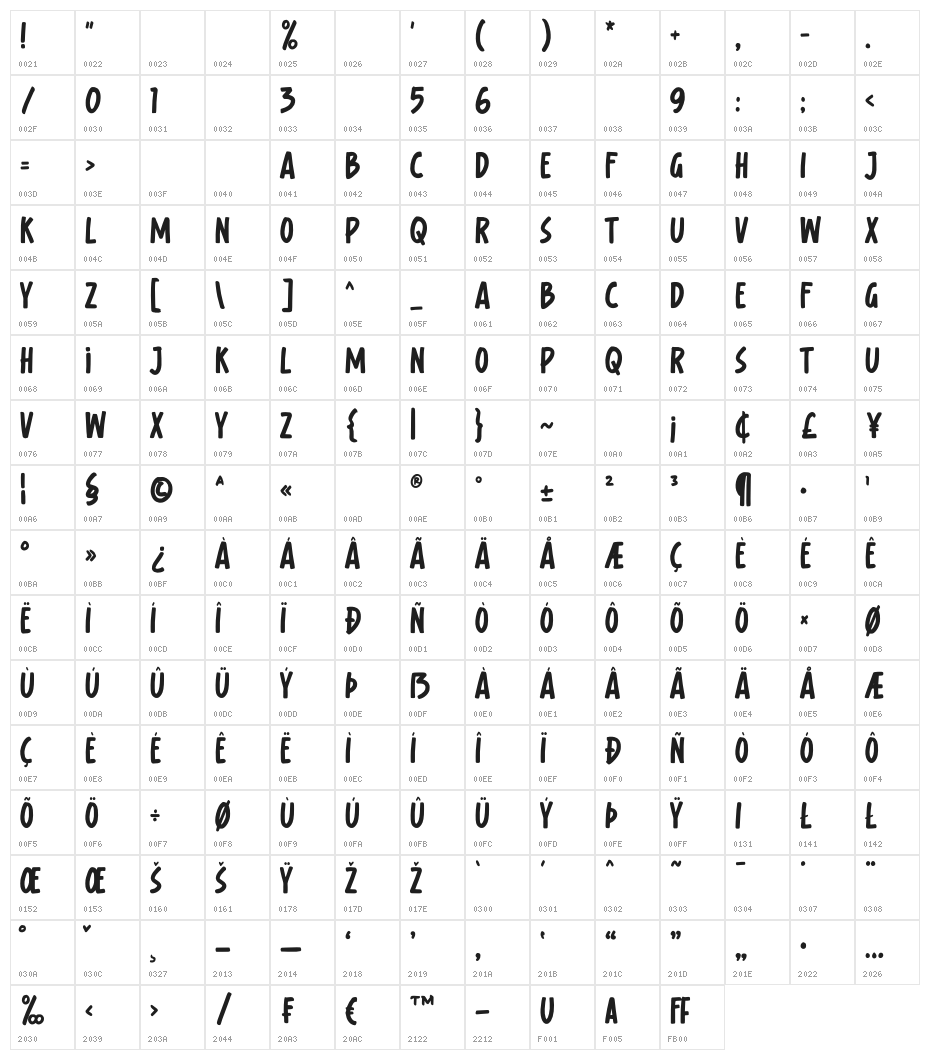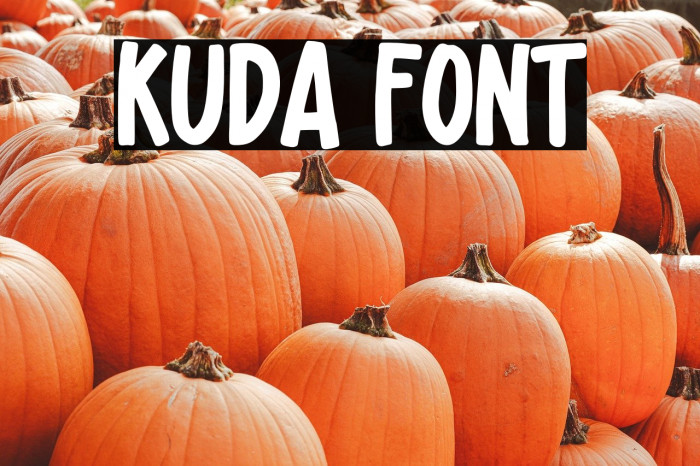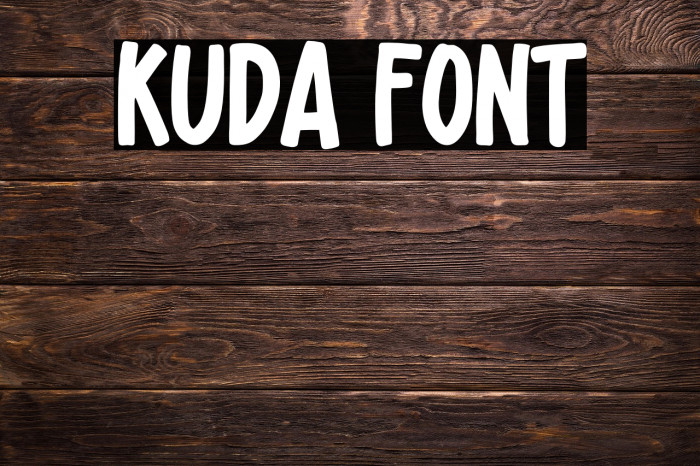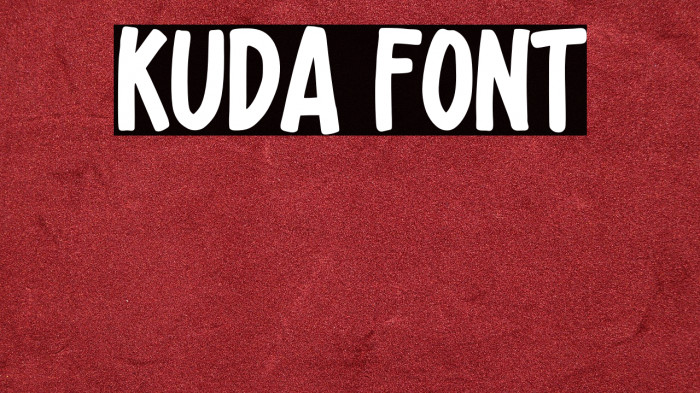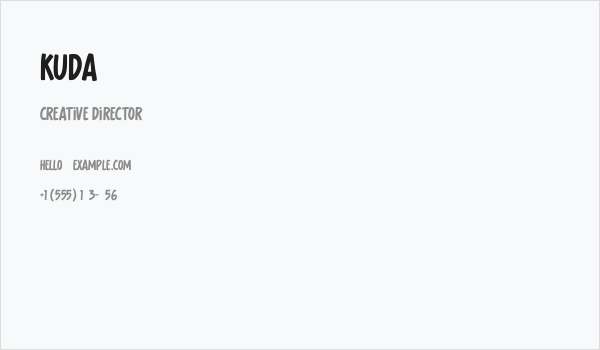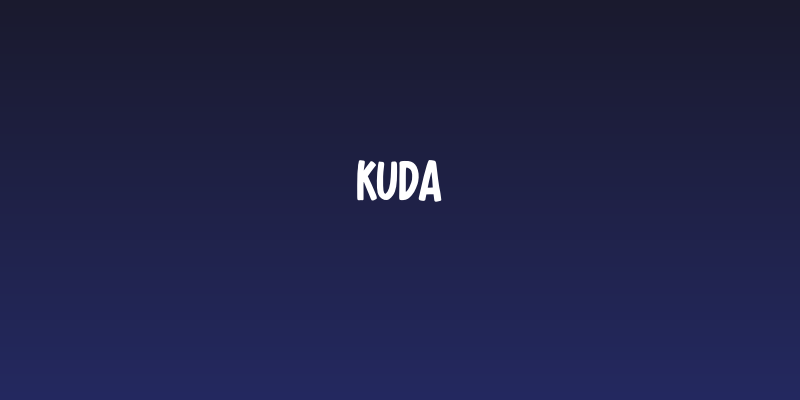
kuda Font
kuda Description
This font features a bold and playful design with rounded edges and a hand-drawn aesthetic. The characters are thick and slightly irregular, giving a casual and friendly appearance. The uppercase and lowercase letters maintain a consistent style, with a slight slant that adds to the dynamic feel. The numbers and special characters are equally bold, ensuring readability and a cohesive look across all glyphs. This font's unique style makes it stand out, while its legibility ensures it remains functional for various uses.
| Proposed Projects | Ideal for children's books, playful branding, posters, and social media graphics. |